Best fonts for signature logos should effortlessly blend into the brand’s identity. Its fluidity and character also create a design that feels both professional and personal. Choosing a signature font helps the brand leave a lasting impression on your audience.
Key Takeaways
- Harmonizing readability and style is mandatory.
- Various font styles, but handwritten ones are top-tier choices.
Our Top Best Fonts for Signature Logos
A well-chosen signature, script, or calligraphic font can transform a simple name into a striking visual statement, adding authenticity and style. Plus, balancing readability and artistry is a must. So, with those considerations in mind, let’s explore our top signature fonts for logos!
1. Ganttecy
Ganttecy is a signature font with a unique silhouette. If you want to make a logo, this font is the correct choice.
2. Herattey
With Herattey, you can show your brand’s modern and fashionable persona. The font’s handwritten look also evokes familiarity with your audience.
3. Batherga
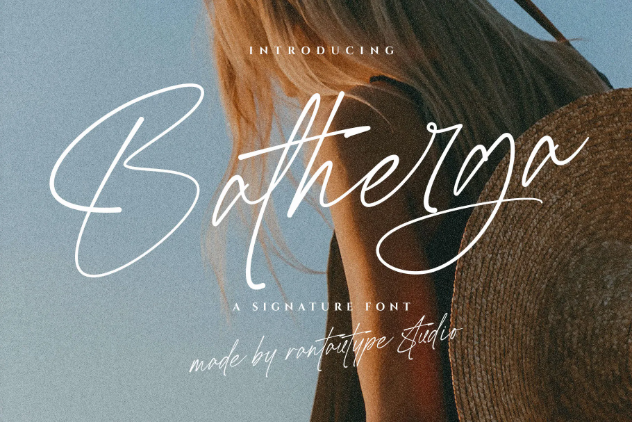
Batherga is a natural signature font that evokes elegance and luxurious vibes. A stylish signature font for a photography logo that can instantly give your brand a professional look.
4. Casanty
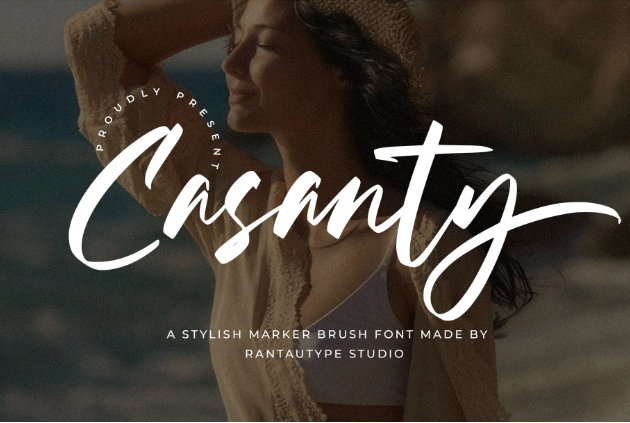
Casanty uses a fusion of the brush and marker look, resulting in dynamic strokes with sharp edges. Additionally, this font also has modern and charming letterforms.
5. Hastheya
With its wild and thin strokes, Hastheya is one of the best fonts for signature logos. Its exciting form can make a memorable logo design.
6. Jullieta
Jullieta’s phenomenal look can make your logo both elegant and timeless. Its quick, confident strokes create a luxurious yet relatable vibe.
7. Bryan Richard
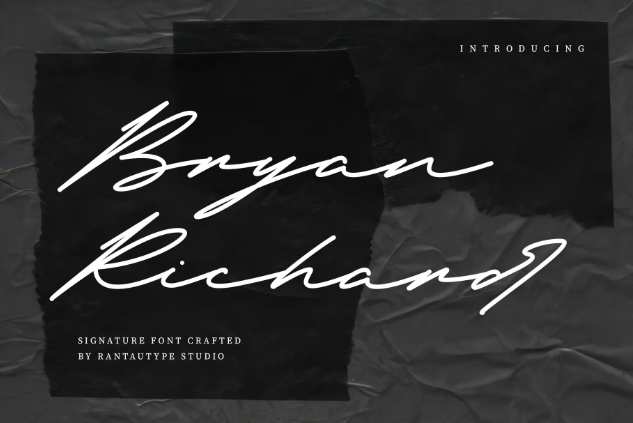
For a luxurious and masculine look, here’s Bryan Richard. This font has extreme italics that can signify authority.
8. Bettasy
The elegant and fun combination from Bettasy easily creates a memorable youthful look. On top of that, this font is very compatible with vibrant colors.
9. Graystone
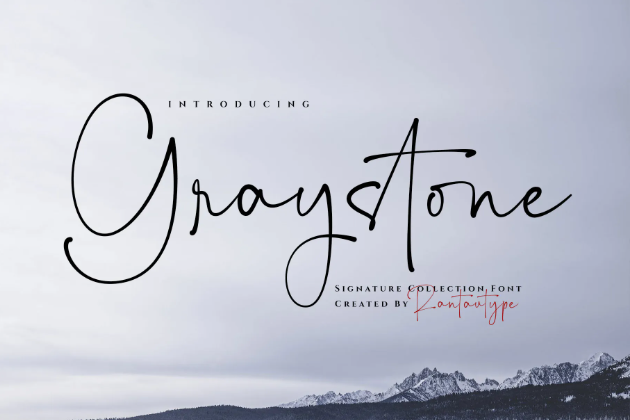
Among our signature fonts, Graystone excels in creating a legible logo. This font uses an upright look and wider kerning to achieve a more stable aesthetic.
10. Estancia
Estancia is the perfect option to evoke more calming vibes in your logo. This font has an elegant look with a stylish, natural touch.
11. Dellamor
Dellamor elevates a natural handwritten font into a professional, modern look. So, this font has both familiarity and legibility to make a lasting impression.
12. Katty Diona
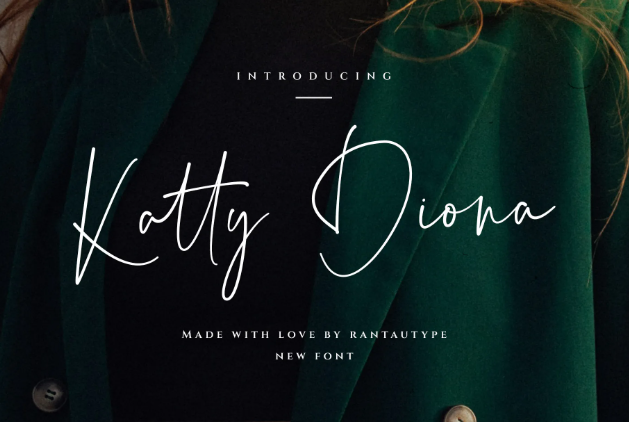
Katty Diona is a fashionable signature font with minimalist aesthetics. The font will satisfy you with its elegant curves, dynamic sizing, and beautiful letterforms.
13. Argine
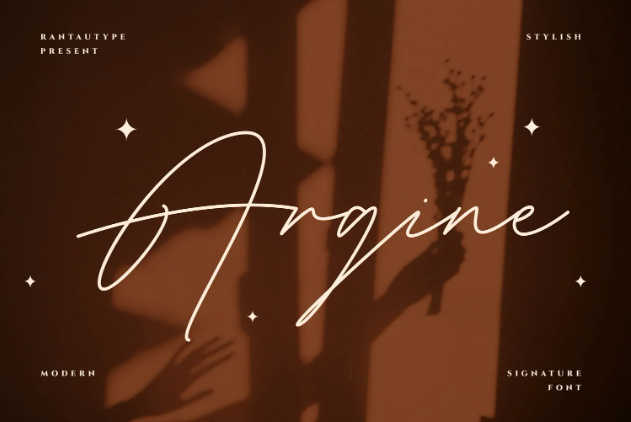
The sparkling Argine can light up your logo with its eye-catching look. The font’s varied letterforms, and its stretchy look create a confident aura.
14. Better Chill
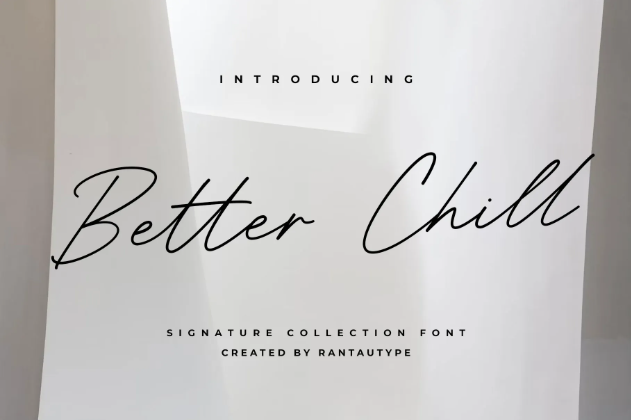
Better Chill is the overall versatile signature font that you need. This font has great readability, stylish strokes, and minimalist vibes.
15. Beyonest
Beyonest utilizes a thicker marker look than the usual signature fonts. With that, this font can deliver bolder, more vibrant colors with the same elegant typeface.
16. Bellysta
Bellysta’s characteristics can be described as lovely yet professional. This font utilizes extreme sizing between both cases, creating a more dynamic look.
17. Castely
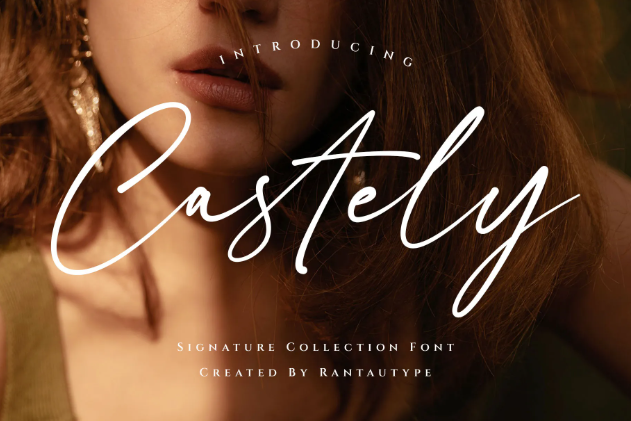
Castely is a natural signature font with lithe and light strokes. This font also displays elegant ornamentals among each letter, creating a better-proportioned look.
18. Anytta
The signature font Anytta is particularly unique. This font feels natural when used in long sentences, unlike the other signature fonts that are better in short forms.
19. Jesyta
Among our best fonts for signature logos, Jesyta has the most expressive typeface. This font has wider kerning, amplifying each letter’s elegant look.
20. Samanta Holland
A faux signature font like Samanta Holland is particularly charming. This font perfectly captures stroke pressures with added unique flourishes.
21. Consultant
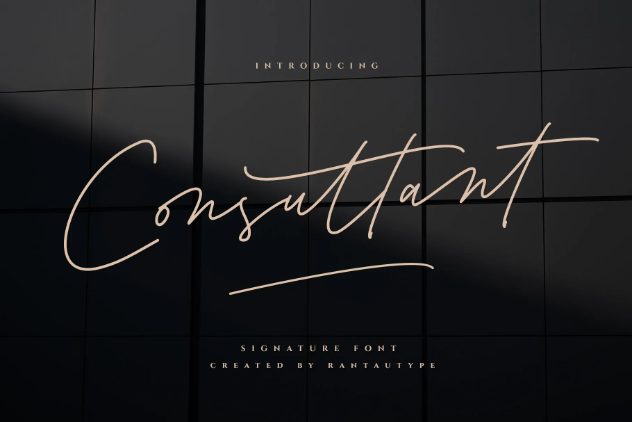
Consultant is a modern, masculine signature font with a particularly firm look on the horizontal lines. This font also displays a confident and wide circular motion for dynamics.
22. Young Rich
With its ribbon-like typeface, Young Rich can elegantly twirl and make a beautiful silhouette. On top of that, this font includes multiple alternates, ligatures, and swashes to satisfy your creative ideas.
23. Jupiter Photograph
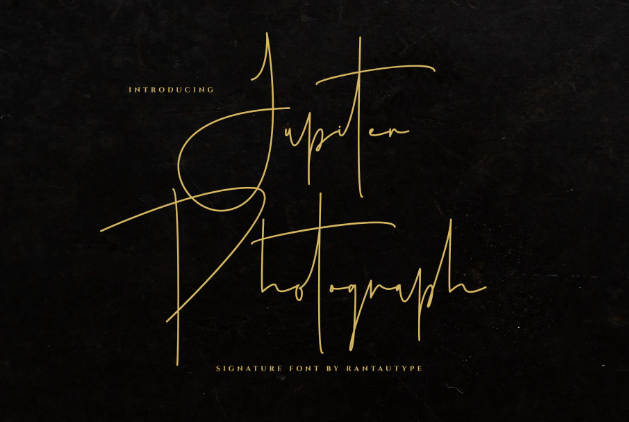
Jupiter Photograph is the best signature font for logo designs. Its luxurious, premium, and modern look can create a lasting impression for your brand.
The perfect signature logo is a blend of personality, elegance, and uniqueness. With the best fonts for signature logos, you can craft a design that feels authentic and timeless because typography is part of an art form that tells a story.